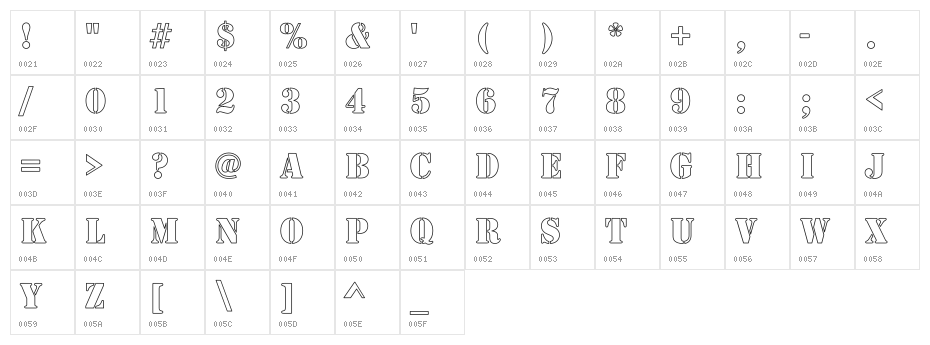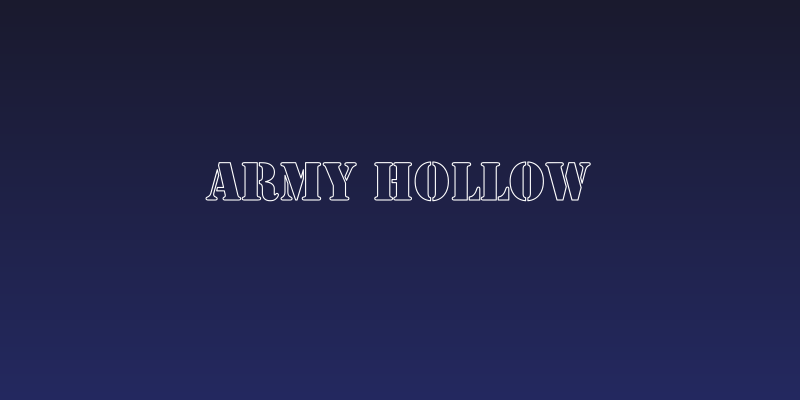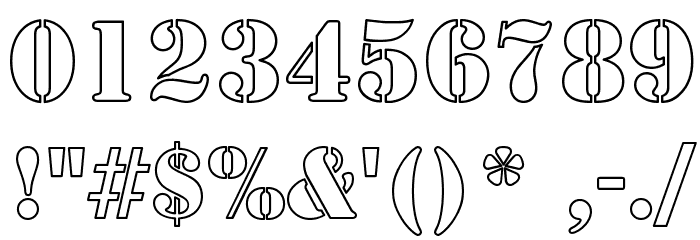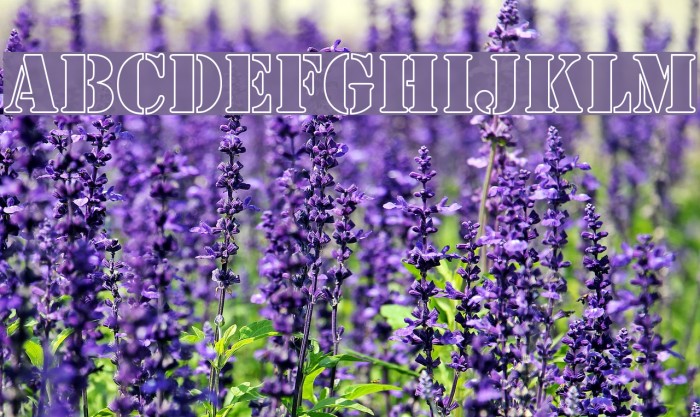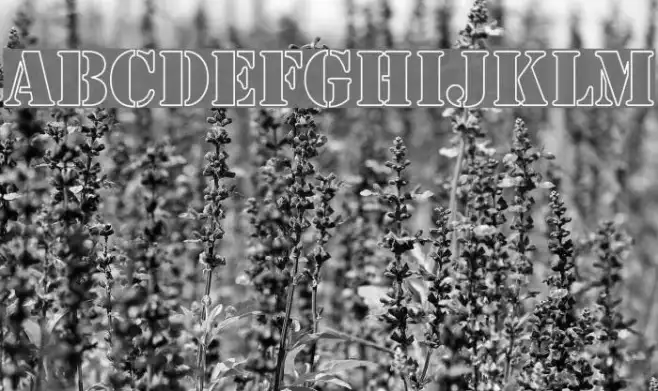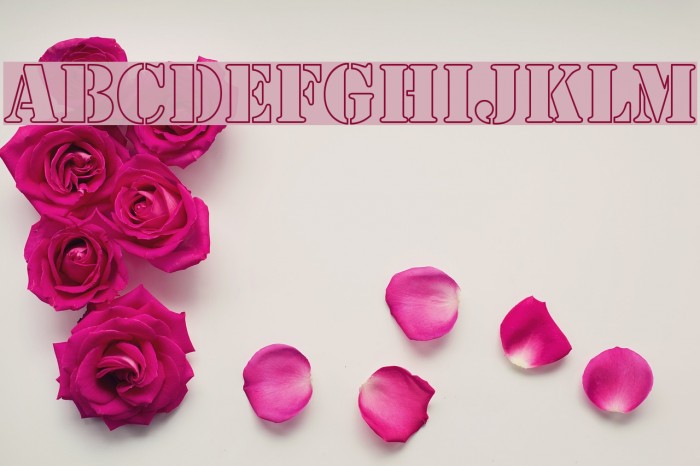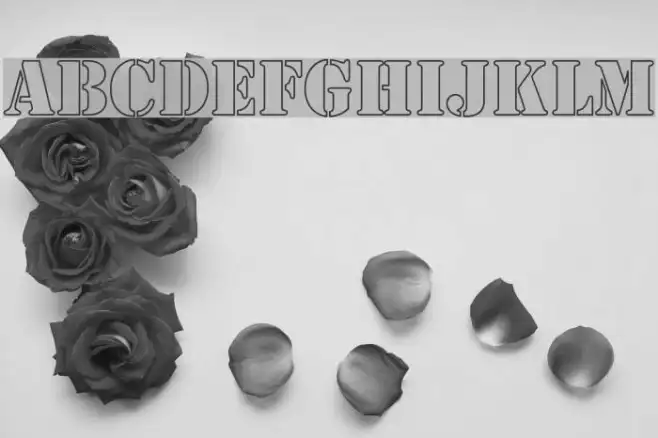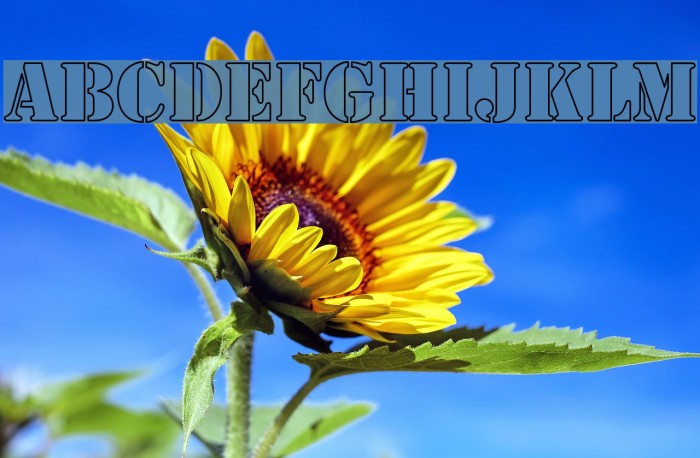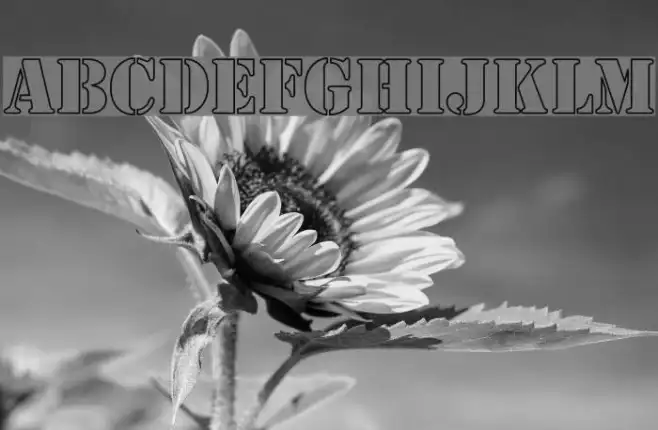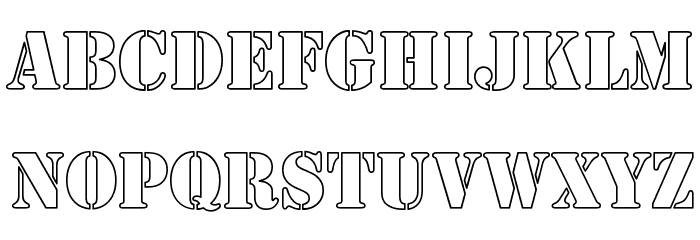
Army Hollow Font
Army Hollow Description
This font features a bold, hollow design with a distinct military-inspired aesthetic. The uppercase letters are robust and commanding, with a strong geometric structure that conveys strength and authority. The hollow interior adds a unique twist, making the characters appear both solid and airy. The numbers and special characters maintain this theme, providing a cohesive look across all glyphs. The design is clean and precise, with sharp angles and straight lines that enhance its authoritative feel. This font is perfect for projects that require a bold statement, such as posters, banners, or branding materials that aim to capture attention with a military or industrial theme.